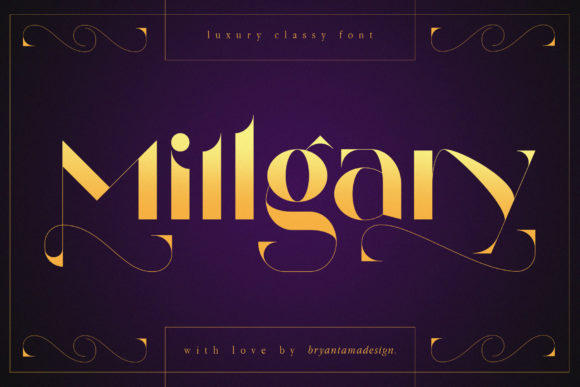
Millgary Font
Feast your eyes upon Millgary, a font that dances across your designs like a ballerina on ice. Its elegant strokes and flourishes are sure to make your words twirl and sing. Millgary has a way with connecting with your audience and leaving them under her enchanting spell. She'll add a touch of magic to your designs, making them as enchanting as a moonlit garden.
With Millgary, your designs will take on a life of their own. Its curves sway and flow, capturing your readers' attention and igniting their imagination. Its vintage charm and modern elegance make it the perfect choice for those seeking a font that is both captivating and sophisticated. Whether you're designing wedding invitation suites, elegant posters, or heartfelt branding, Millgary will add a touch of class that will leave your audience breathless.
But be warned, once you fall under Millgary's spell, it's hard to resist her allure. You'll find yourself reaching for her again and again, bewitched by her captivating presence. She's more than just a font; she's a muse, a partner in your creative journey. With Millgary by your side, your words will come alive, your designs will flourish, and your audience will be utterly mesmerized.